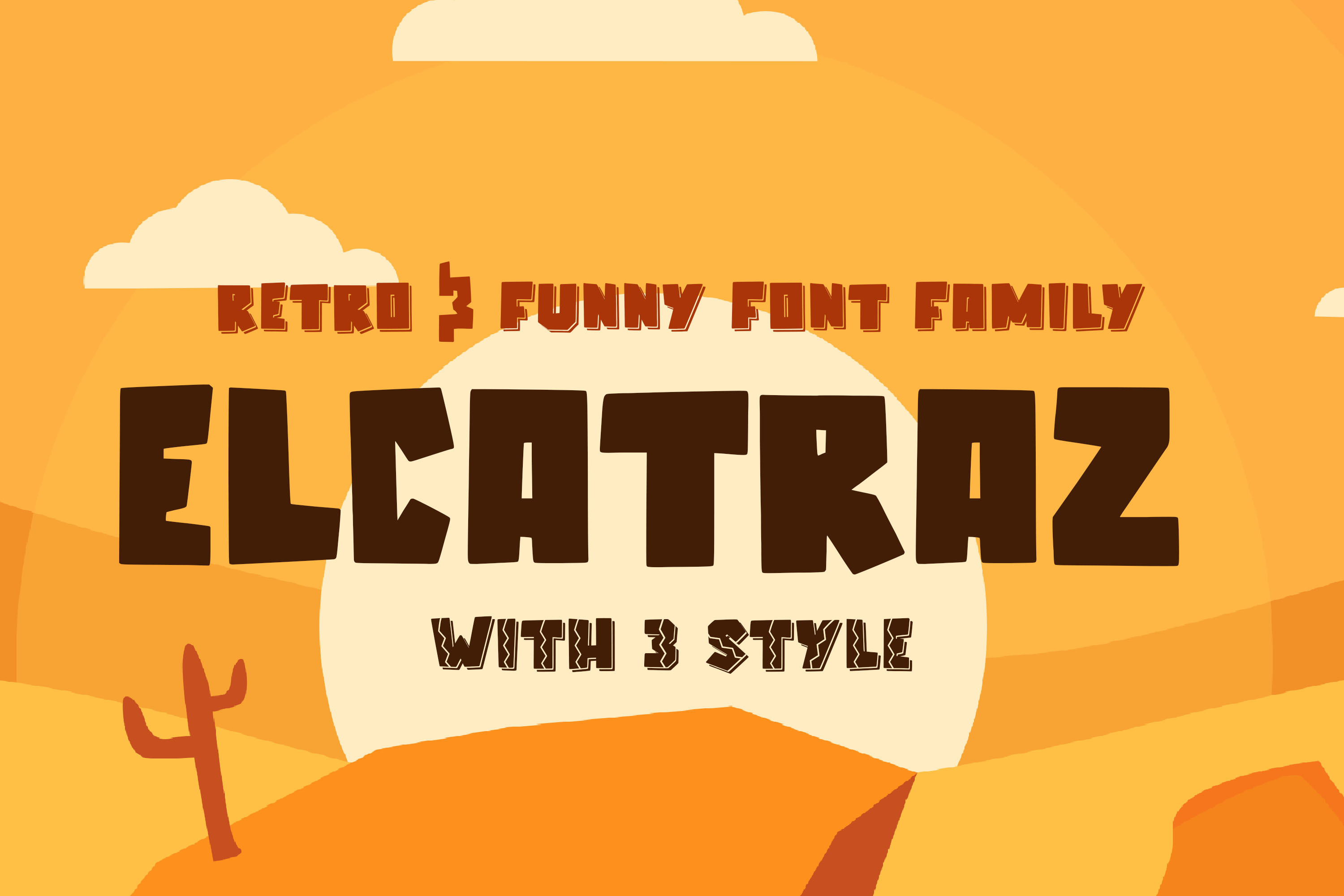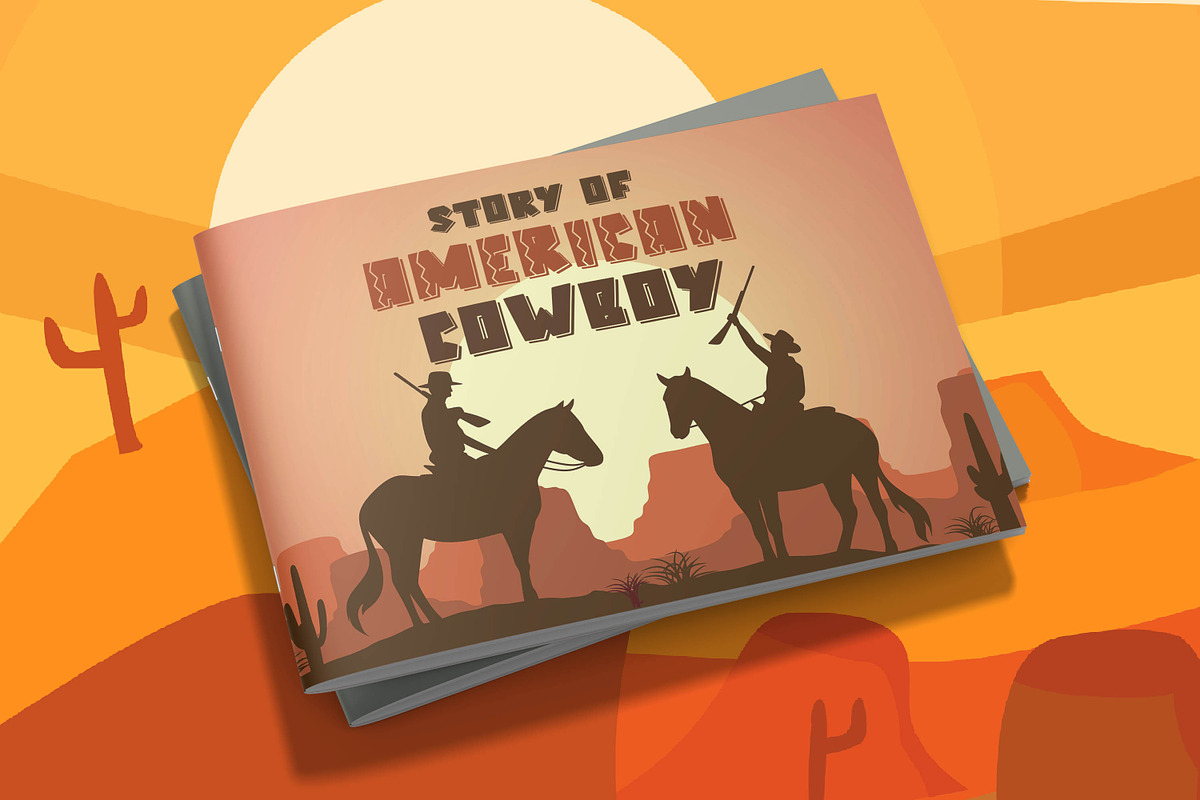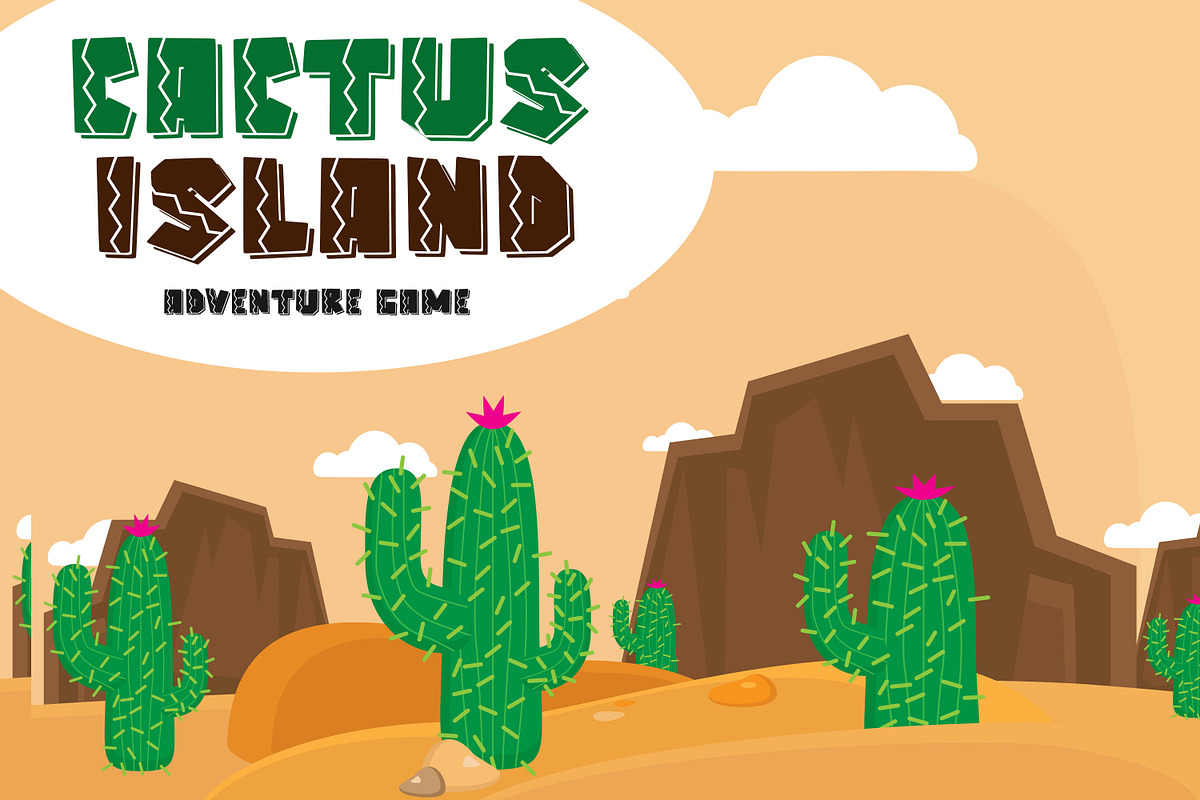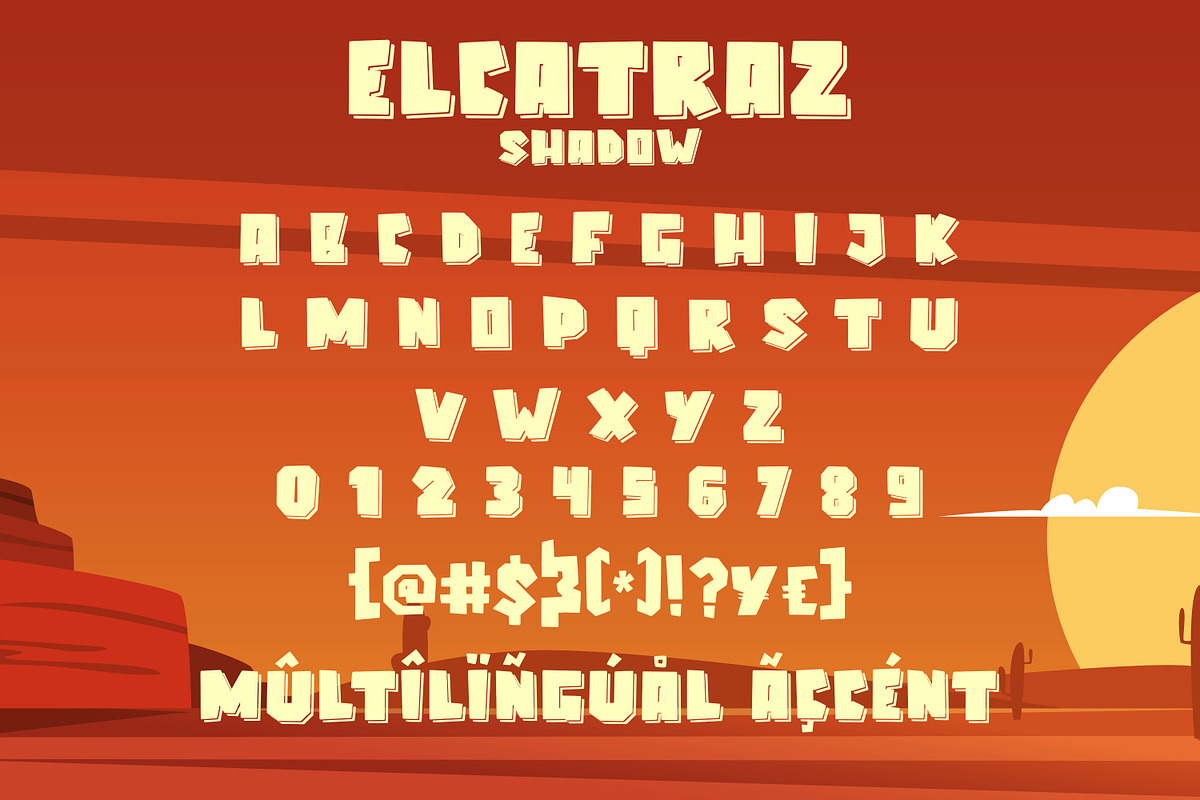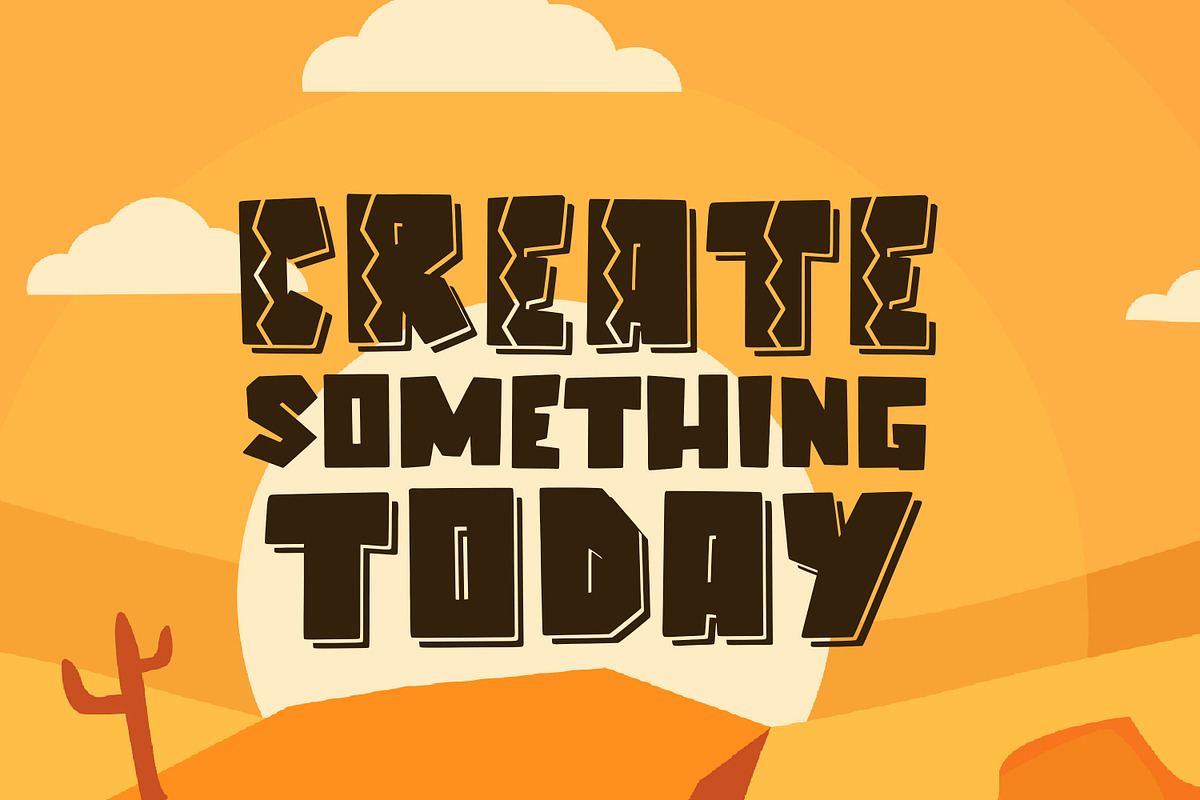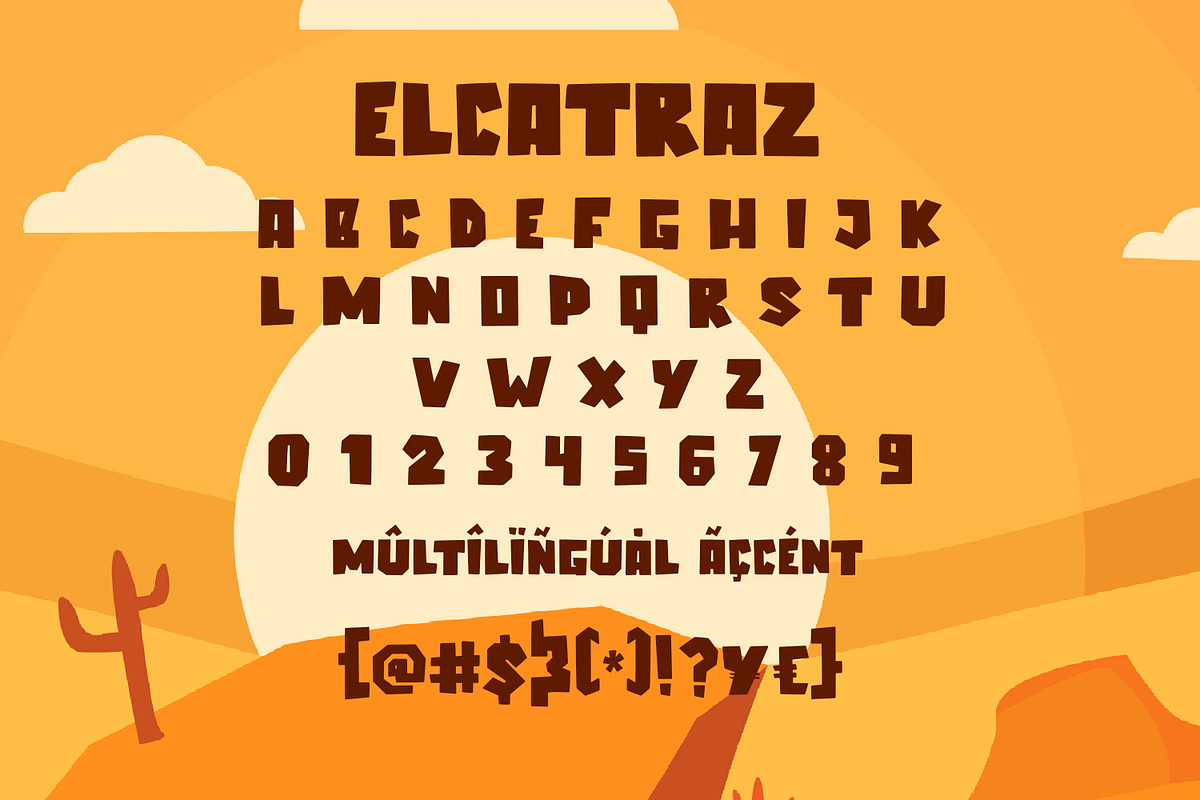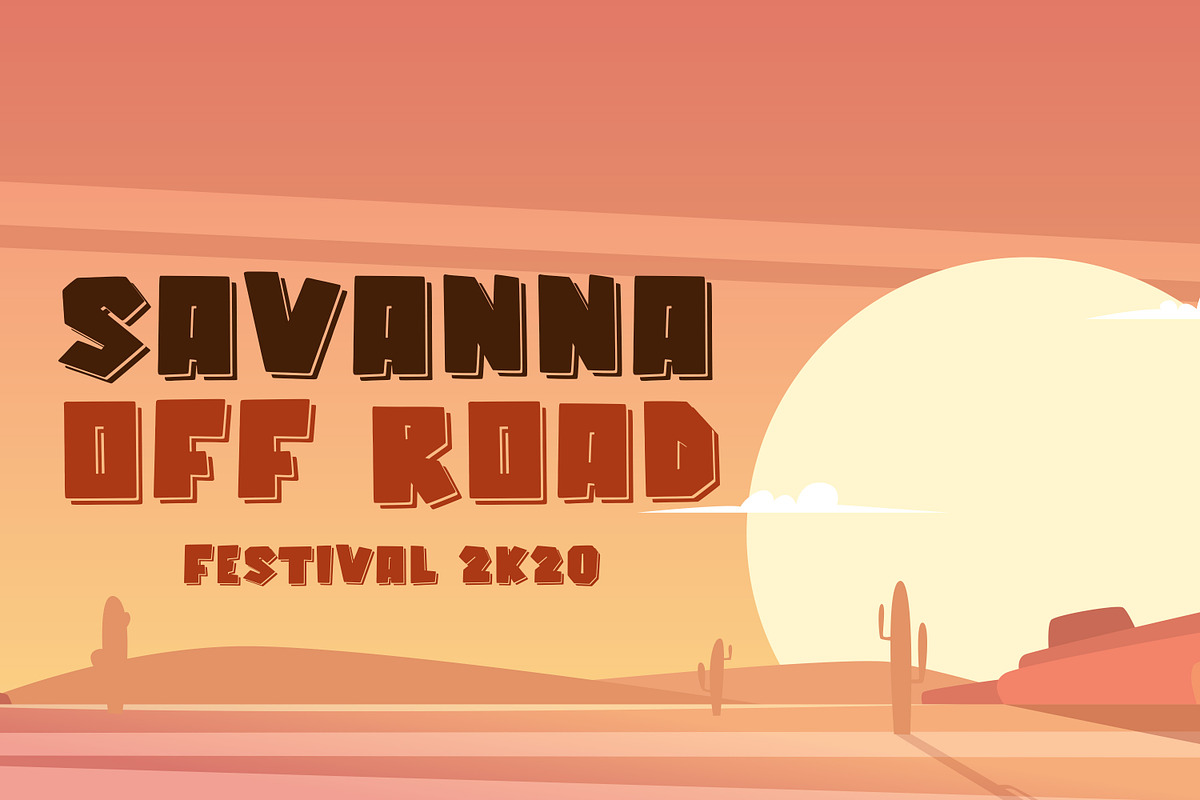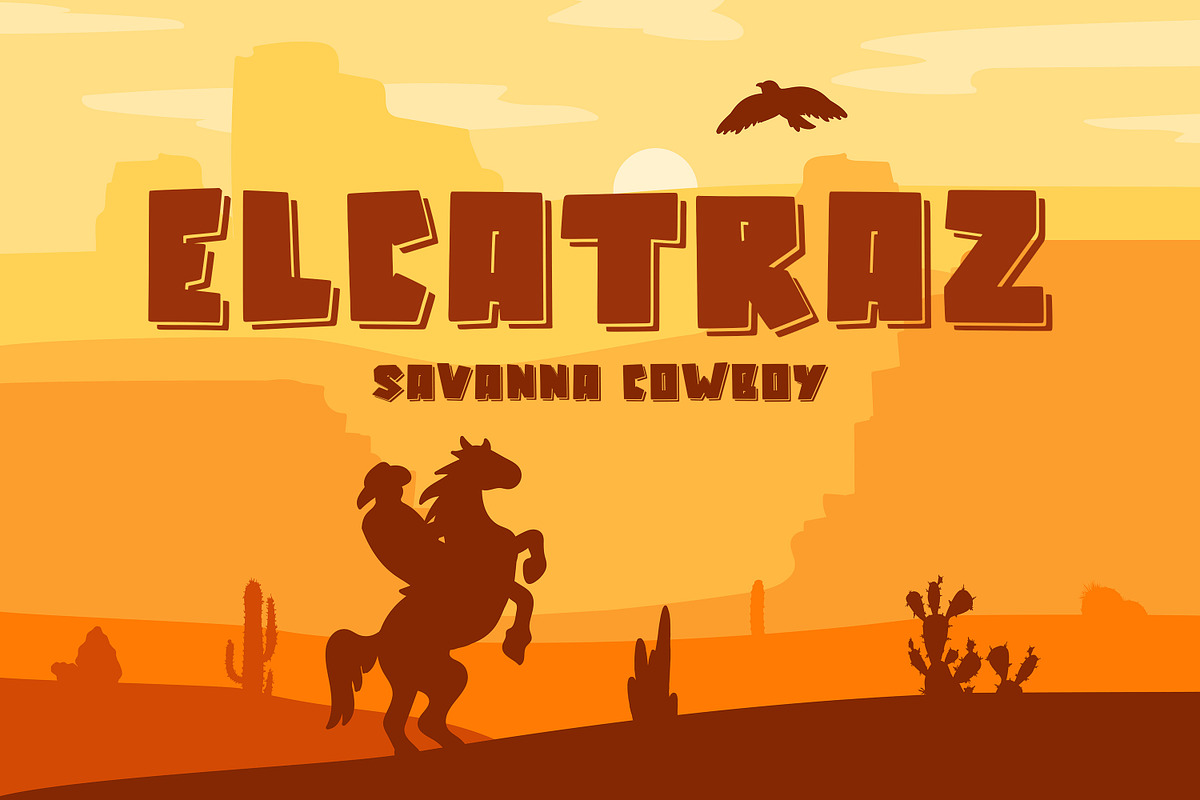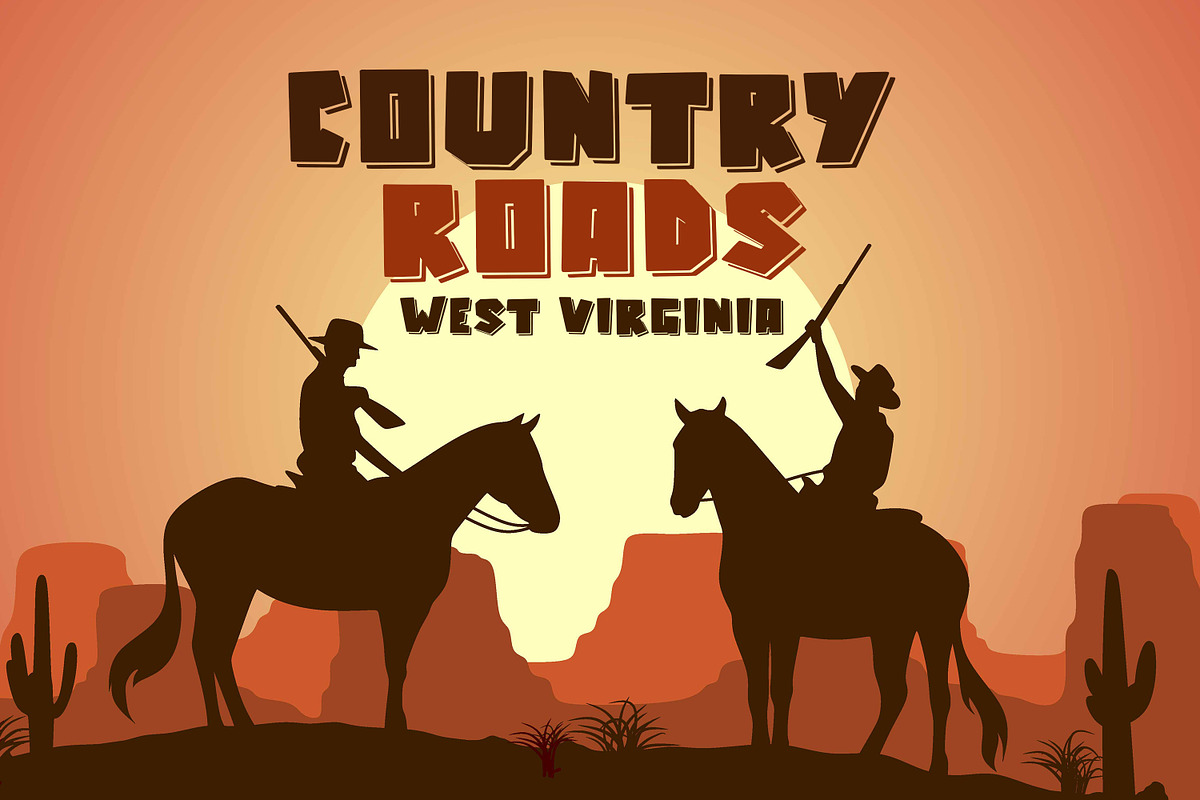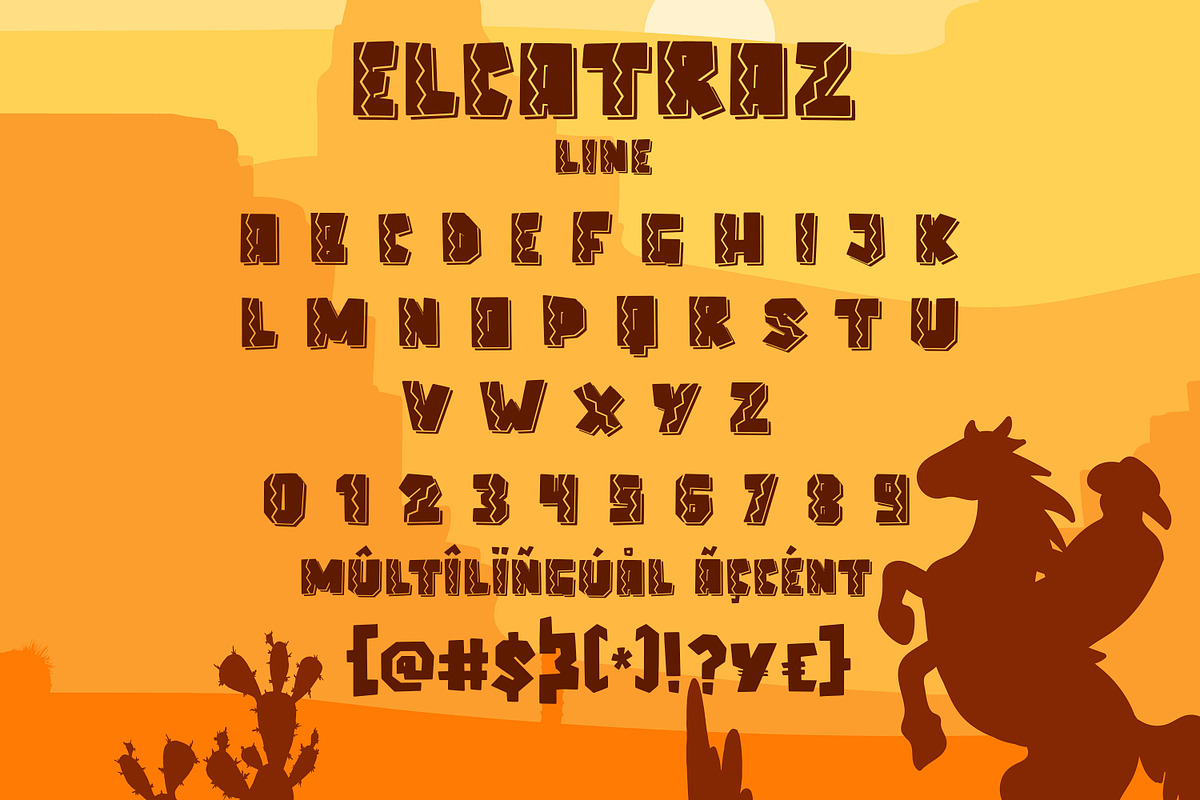
Elcatraz Family - Retro & Funny Font
Elcatraz Family is a Fancy and Retro Sans full of charm. It will take any DIY-project to the next level!
Elcatraz Family is perfect for Craft , product packaging, product designs, label, branding projects, logo, vintage social media posts, advertisements, watermark, invitation, stationery and any projects